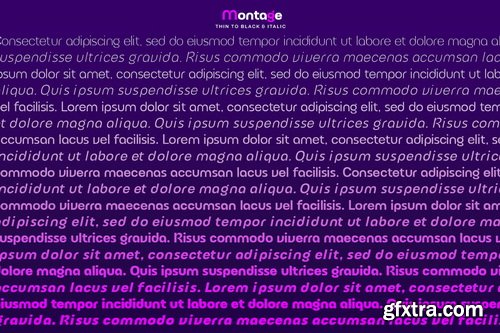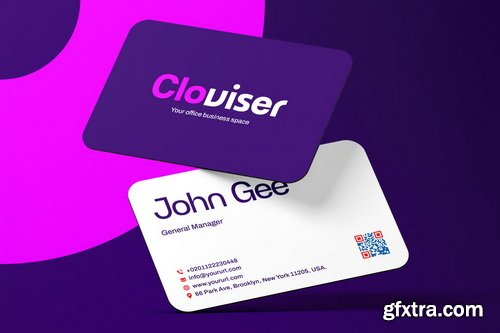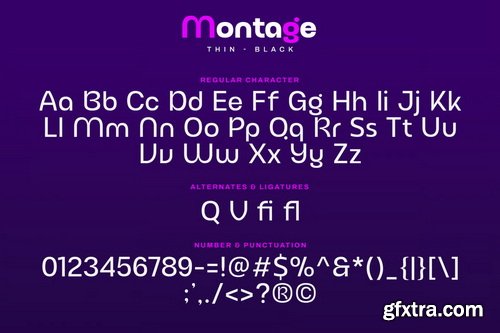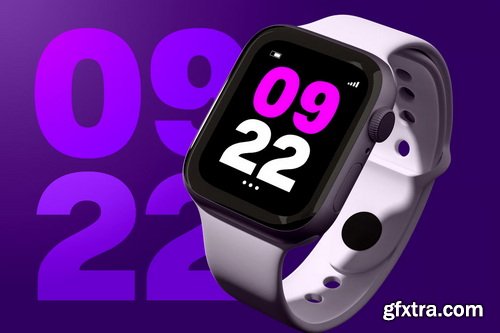
Montage Logo Font
- Montage is a refined sans-serif display font crafted to deliver a bold and modern statement. Its clean lines and confident presence make it the perfect choice for branding, logos, and impactful visual identities that demand attention.
- From premium packaging and editorial layouts to digital banners and signage, Montage thrives in creative projects where clarity and sophistication are key. It transitions seamlessly across industries—whether used in high-fashion campaigns, corporate presentations, or contemporary web design—ensuring every project leaves a memorable impression. With precise kerning and meticulously balanced proportions, Montage offers exceptional visual harmony. Designed for prominent applications, it stands out in titles, headers, and focal text elements, amplifying the strength of a brand’s message while maintaining an elevated aesthetic.